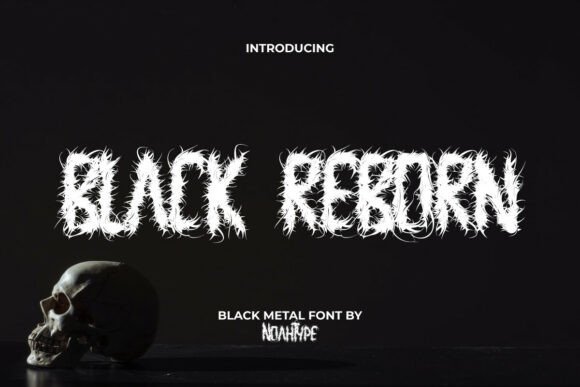
Unleashing the Power of Black Reborn Font: A Designer’s Dream Come True
I’ll never forget the design project that led me to discover Black Reborn Font. I was working on a branding campaign for a heavy metal band, and I was struggling to find a font that captured the essence of their music. The client wanted something bold, edgy, and terrifying – and I was determined to deliver. After hours of searching, I stumbled upon Black Reborn Font, and it was love at first sight. The sharp, aggressive letterforms and bold aesthetic were exactly what I needed to bring the band’s brand to life.
So, what makes Black Reborn Font so special? Here are a few things I love:
• ✨ Bold and edgy aesthetic: The font’s sharp, aggressive letterforms are perfect for creating a dramatic impact in your designs.
• ✅ Complete set of all-caps characters: The font features a complete set of all-caps characters in both uppercase and lowercase variations, making it versatile and easy to use.
• 🎉 PUA encoded for easy access to glyphs and swashes: The font is PUA encoded, which means you can easily access all of the glyphs and swashes with ease.
And, like any font, it’s not without its quirks. Here are a few things to keep in mind:
• 🤔 Limited use cases for lowercase letters: While the font features both uppercase and lowercase variations, the lowercase letters may not be suitable for all design projects.
• ⚠️ May not be suitable for body text: Due to its bold and edgy aesthetic, Black Reborn Font may not be the best choice for body text. It’s better suited for headings, titles, and promotional materials.
The Story Behind Black Reborn Font
Black Reborn Font was designed by a team of typographers who are passionate about heavy metal music and hard rock aesthetics. The font was inspired by the raw energy and intensity of these genres, and it’s perfect for creating bold and edgy designs. Whether you’re a designer, musician, or simply a fan of heavy metal music, Black Reborn Font is a great addition to your font library.
What is Black Reborn Font? Black Reborn Font is a bold and edgy display typeface inspired by black metal and hard rock aesthetics.
Is Black Reborn Font suitable for body text? No, Black Reborn Font is better suited for headings, titles, and promotional materials. It’s not recommended for body text due to its bold and edgy aesthetic.